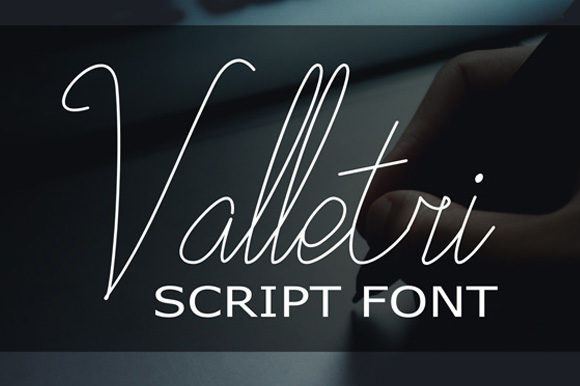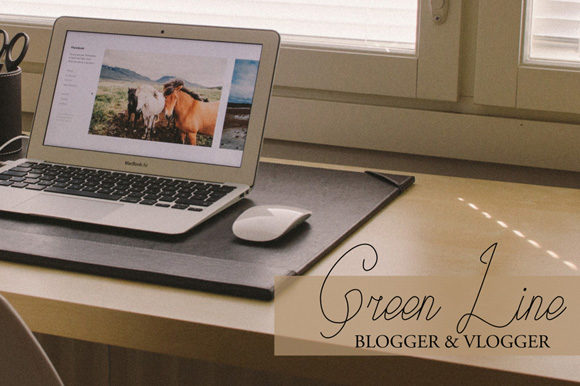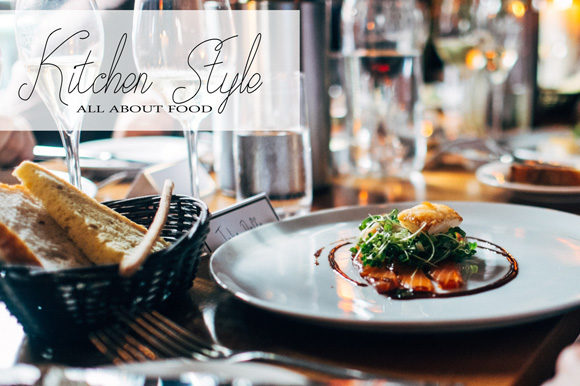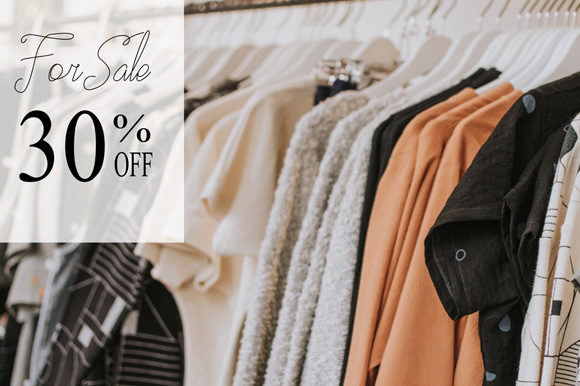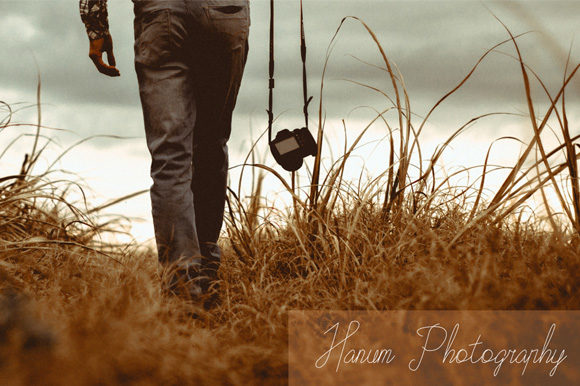
HomeScript FontsValletri Font Script Fonts Valletri Font FacebookXPinterestWhatsApp Valletri Font Poster 2 Valletri Font Poster 3 Valletri Font Poster 4 Valletri Font Poster 5 About Valletri Font Valletri is an organic handwritten font with a simple vibe. Get inspired by its personal feel. DOWNLOAD ON CREATIVE FABRICAThis font is sold and delivered by Creative Fabrica. Font Canyon may earn a commission if you buy through this link. People also explored Ralynda Font Babyhome Font Generic Pinky Yellow Font Beyond Eternity Font Winteria Font Christmas Scriptty Font Carera Bernadia Font Fiselya Font 313 0 TagsValletri Font Previous articleAngel Signature FontNext articleCatalonia Font LEAVE A REPLY Cancel reply Comment: Please enter your comment! Name:* Please enter your name here Email:* You have entered an incorrect email address! Please enter your email address here Website: Save my name, email, and website in this browser for the next time I comment. Personal Use Free Gaboed Personal Use Free Read more about this font Fribash Personal Use Free Read more about this font Soulties Personal Use Free Read more about this font Jurnal Personal Use Free Read more about this font BLOG Free vs Paid Fonts: Why Investing in Premium Fonts Is Worth It Free vs Paid Fonts: Why Premium Fonts Are Worth It in 2025 The debate of free vs paid fonts continues in the design world. While... Exploring Font Trends 5 Fonts That Will Dominate Design Trends in 2026 Top 10 Handwritten Fonts That Elevate Your Designs